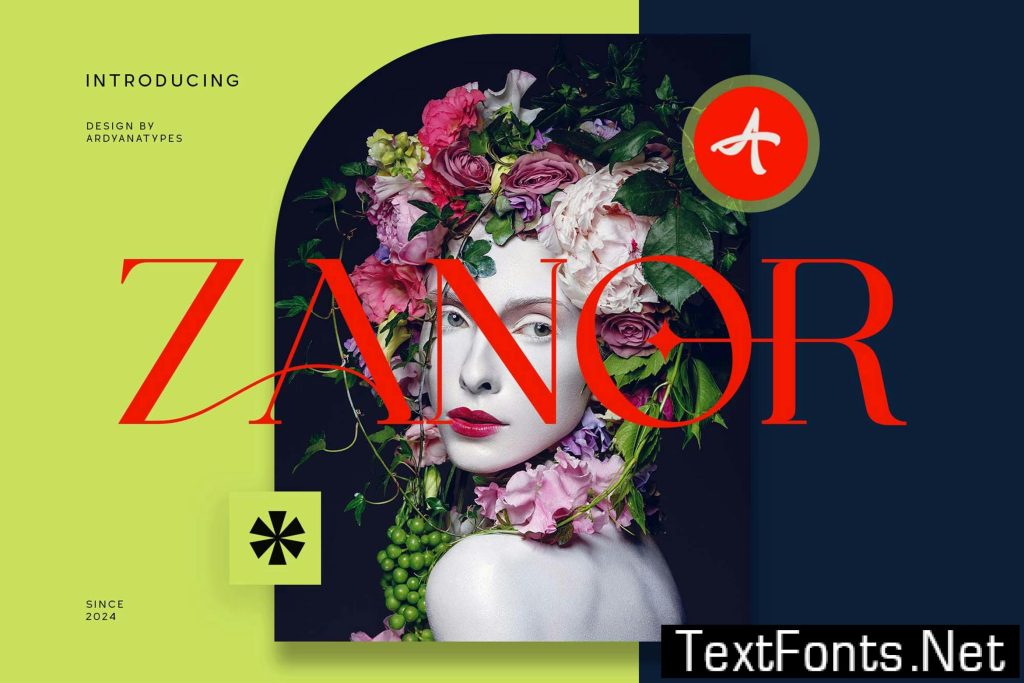
Zanor 3NMZLAE
Mr.D  04/26/2024  Leave a Comment on Zanor 3NMZLAE  Posted in Other Fonts Tagged 70s, Bold, chic, Classy, Fashion, fat, magazine, Modern, Retro, retro70s, Serif, Vintage, vintage70s Zanor is a serif font designed with modern elegance to meet the aesthetic needs of contemporary design. Designed with high precision, Zanor provides optimal reading comfort, making it